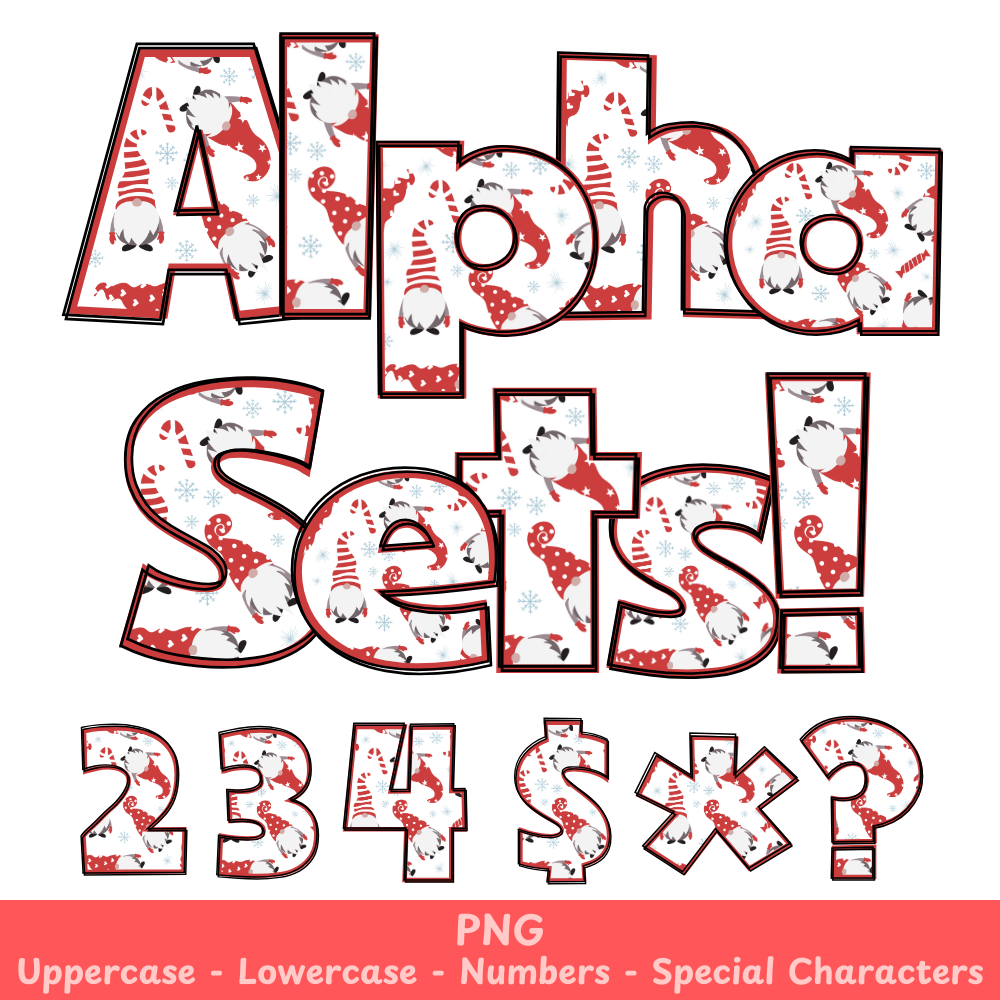
Red Christmas Gnomes PNG Font
Red Christmas Gnomes Alpha Set PNG Font Pack
This red Christmas gnome PNG font is perfect for all your holiday-themed crafting needs. With its high-quality design and versatility, you can add festive flair to any project including sublimation and more. Get into the spirit of the season with this must-have font.